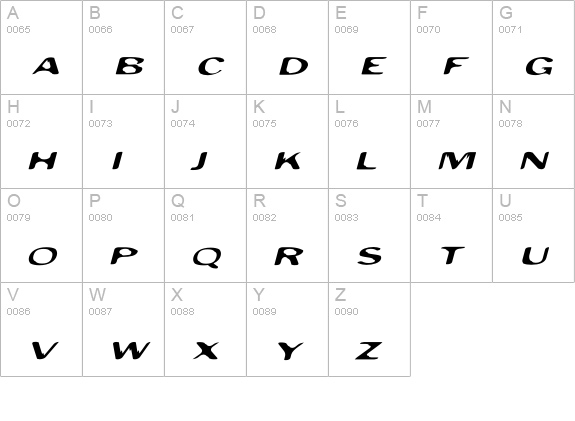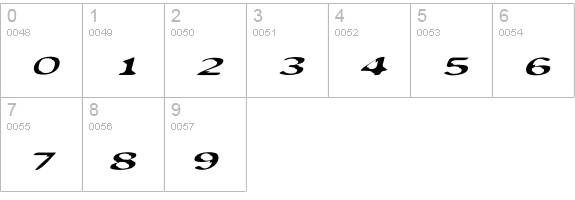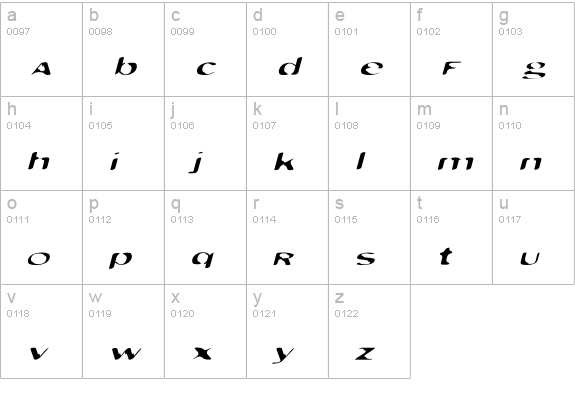
MonkeyCaughtStealing-SquatObliq font is a playful and whimsical typeface that adds a touch of fun to any design project. With its unique squat and oblique style, this font is perfect for creating eye-catching headlines, posters, and social media graphics. The irregular shapes and slanted angles give MonkeyCaughtStealing-SquatObliq a dynamic and energetic appearance, making it a great choice for projects that need a bit of personality. Best of all, MonkeyCaughtStealing-SquatObliq font is completely free to use and is available for download at FontsMarket.com. Whether you're working on a personal project or a professional design, this font is sure to stand out and make a statement. Add a touch of creativity and originality to your work with MonkeyCaughtStealing-SquatObliq font today!